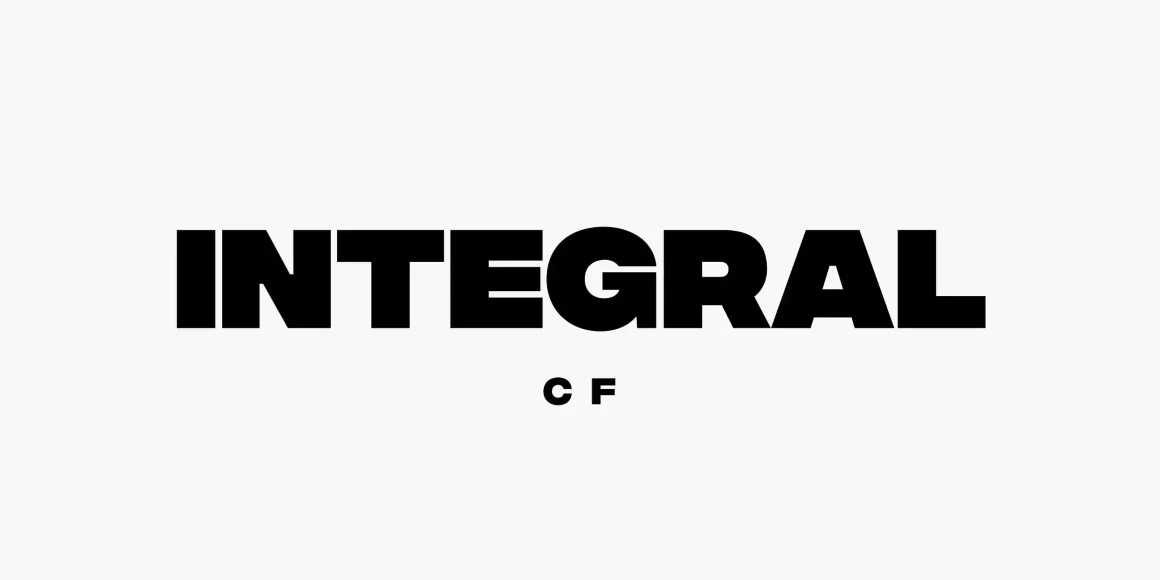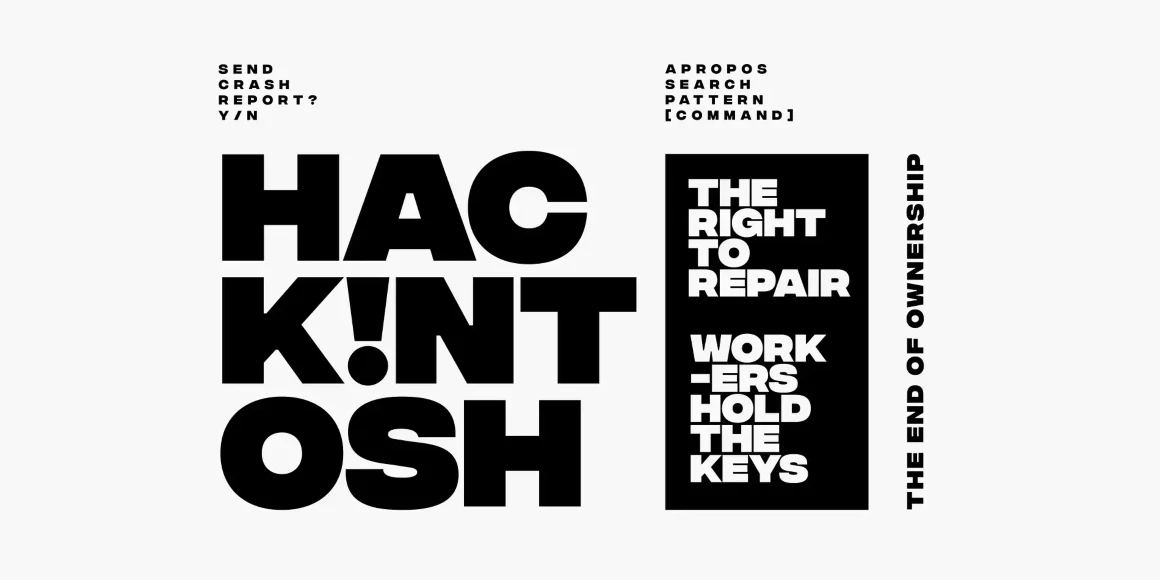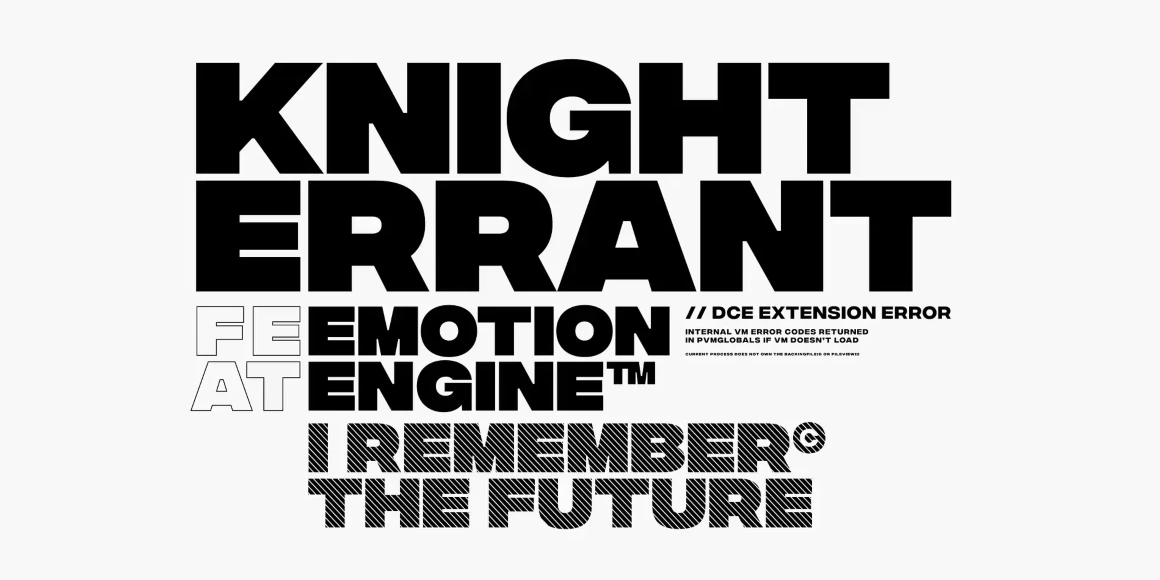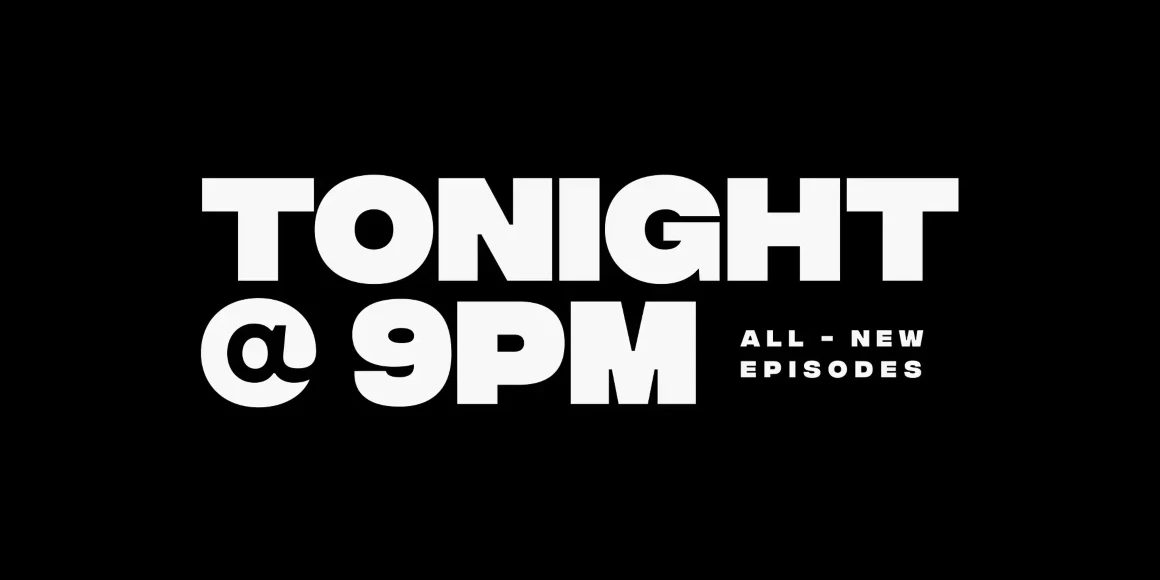
Integral
From Connary Fagen Fonts
Integral CF is designed for maximum visual and emotional impact. Its six weights excel in posters, social media, headlines, titling, large-format print — and anywhere else you want to be noticed. Hidden among the straight lines and corporate confidence is a hint of roguish charm and character; Integral lends your words a strong voice while being a lot of fun to use.
Designed by Connary Fagen